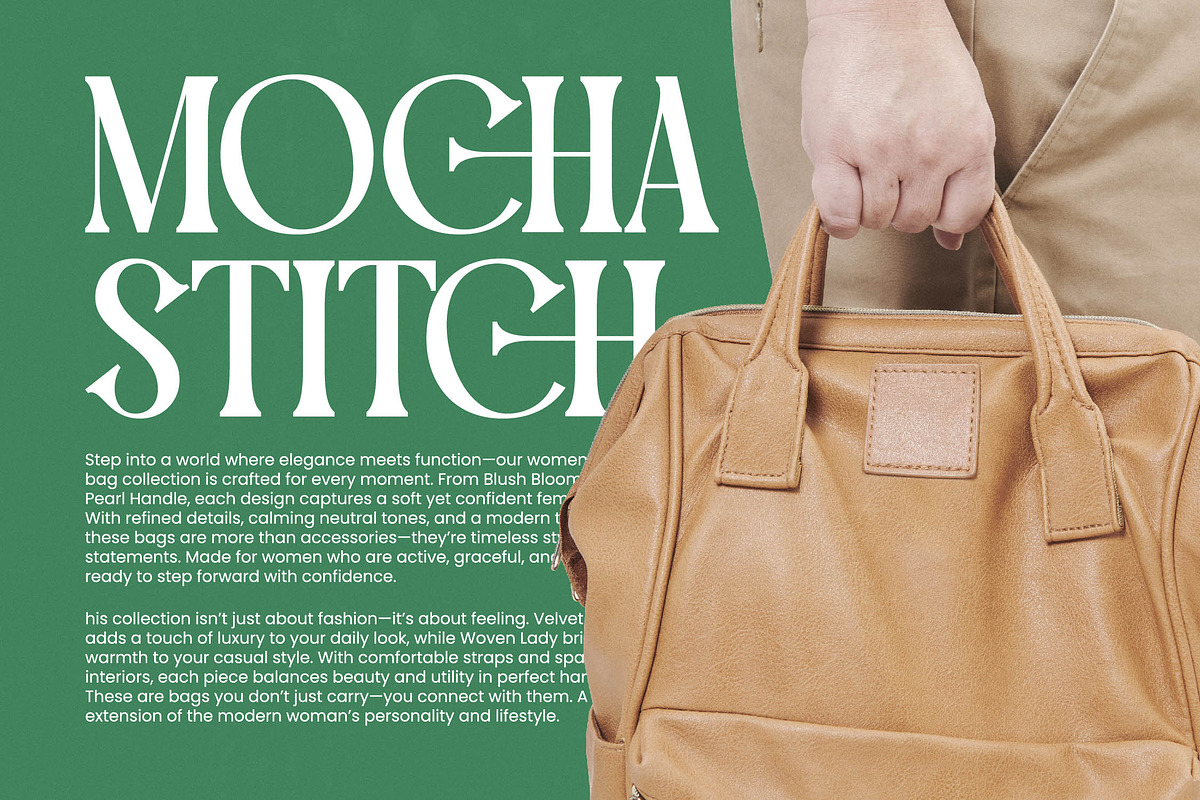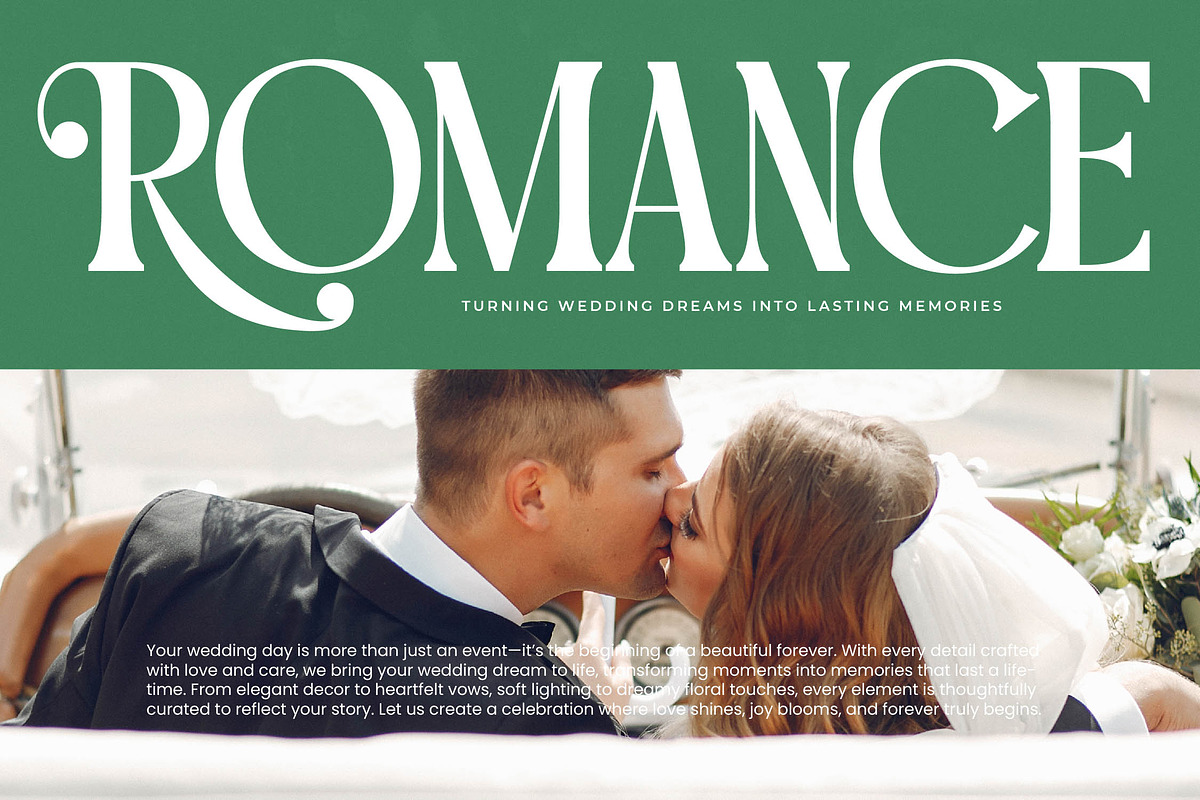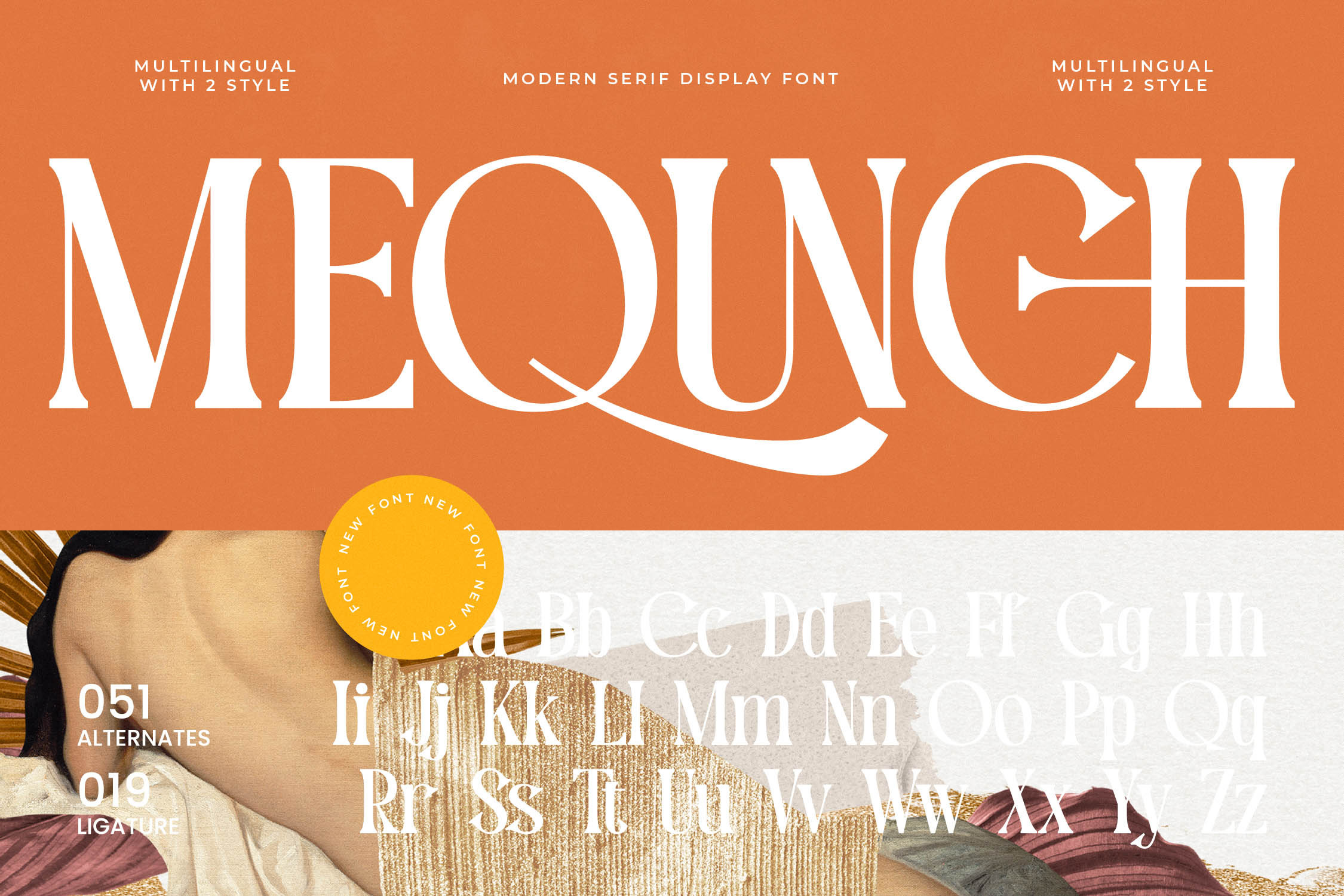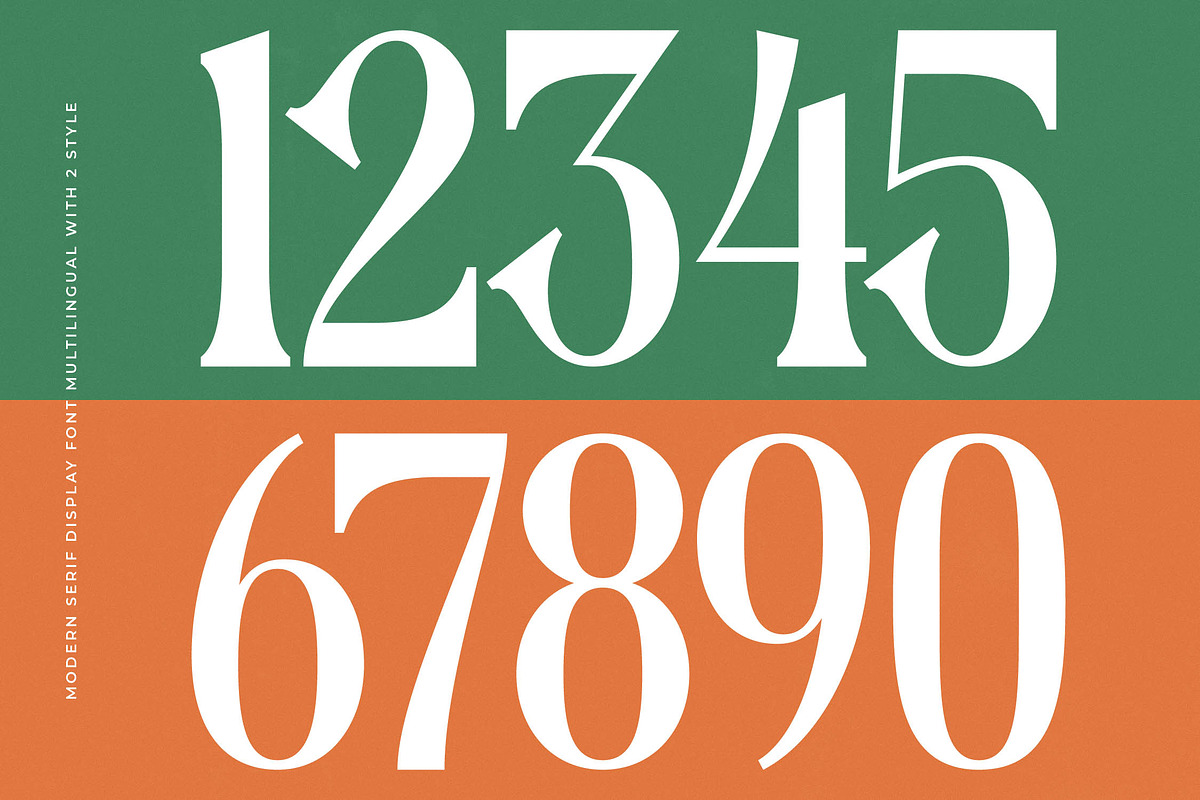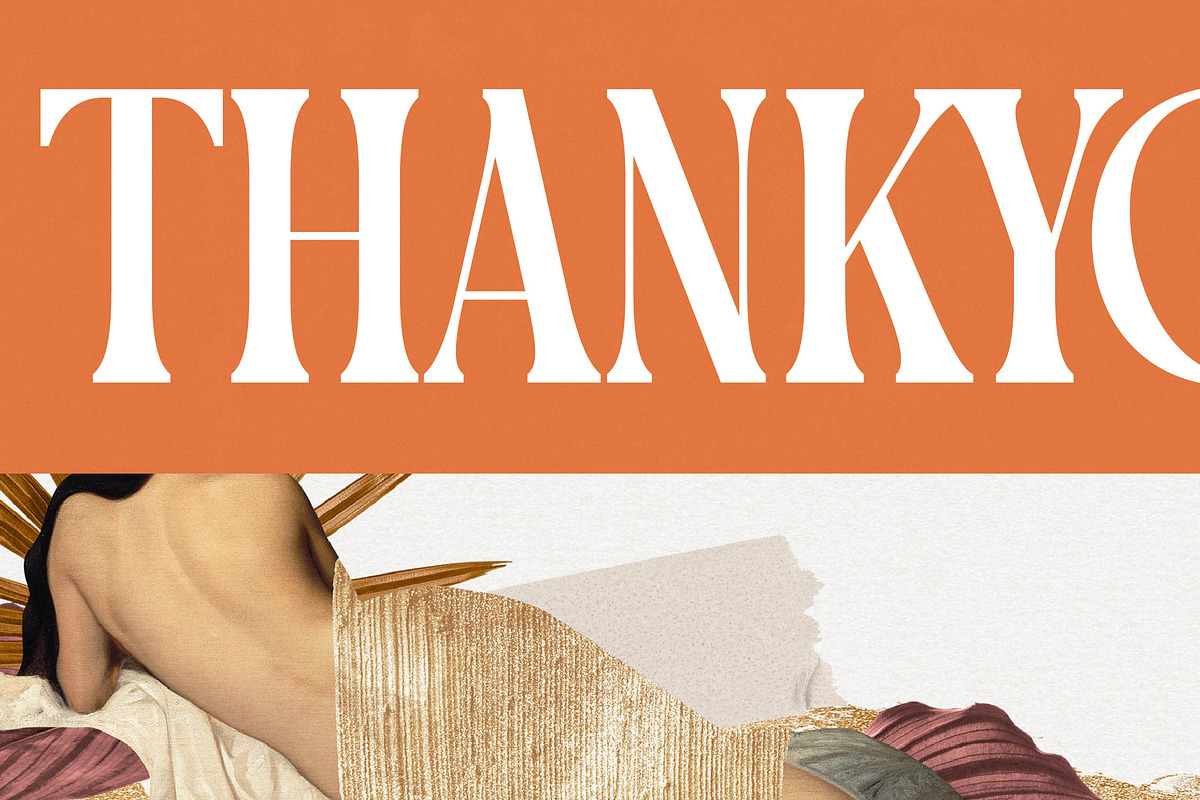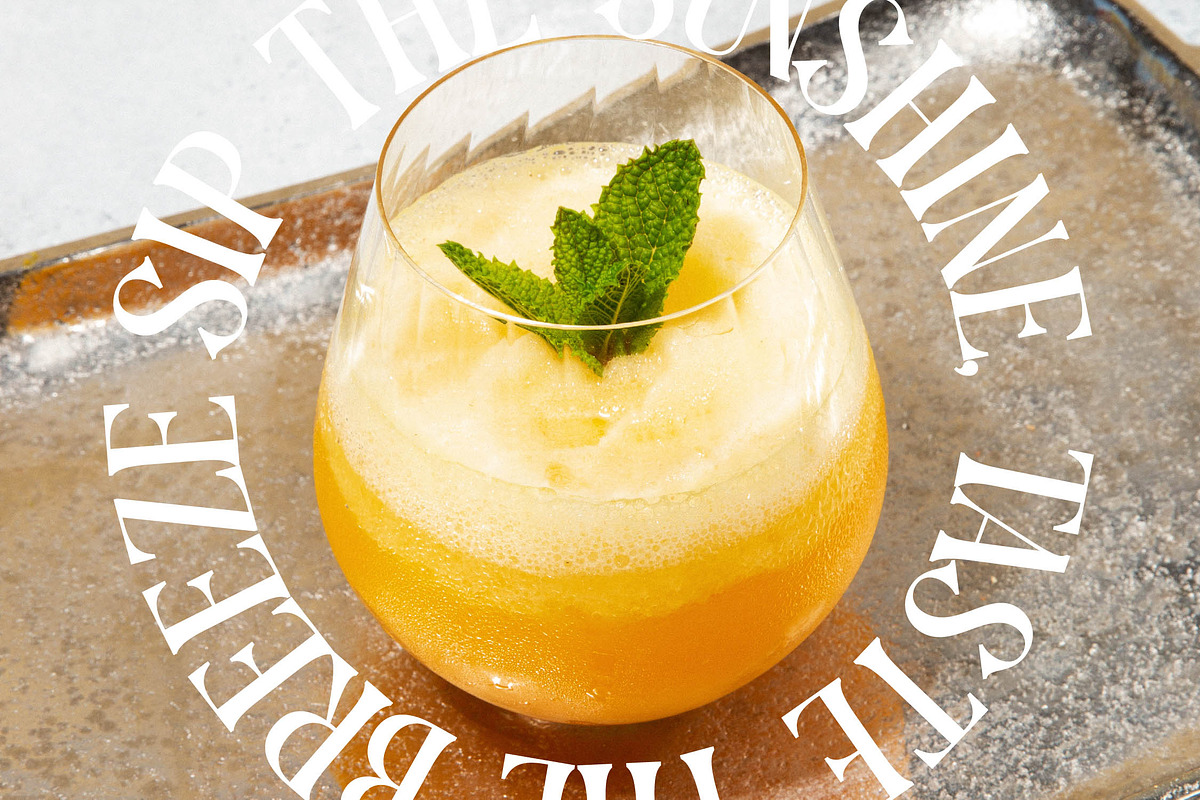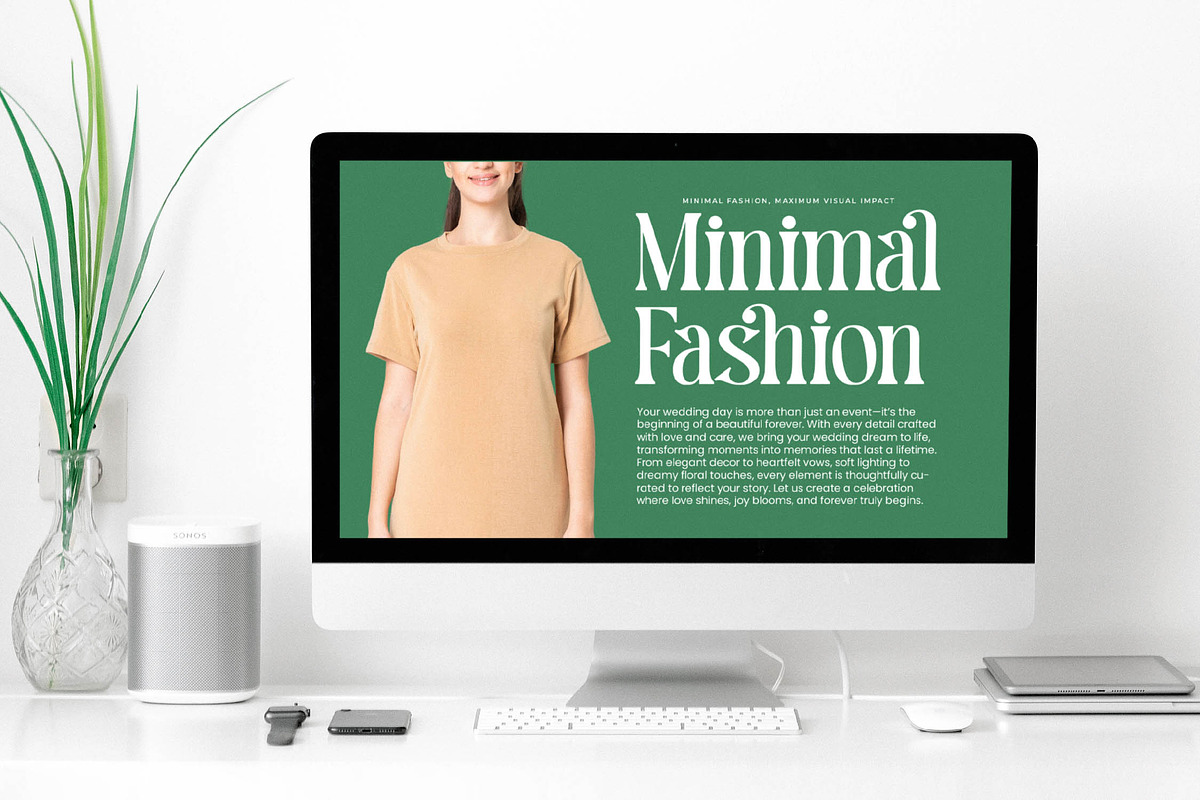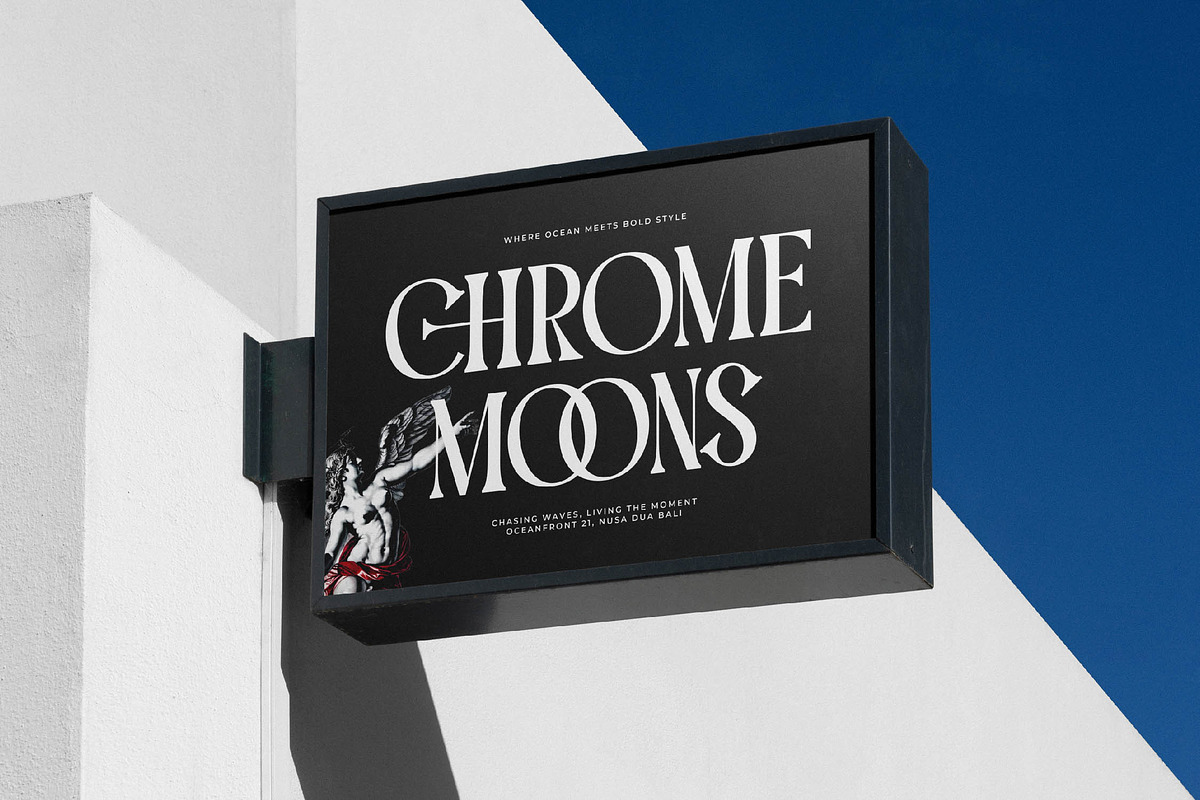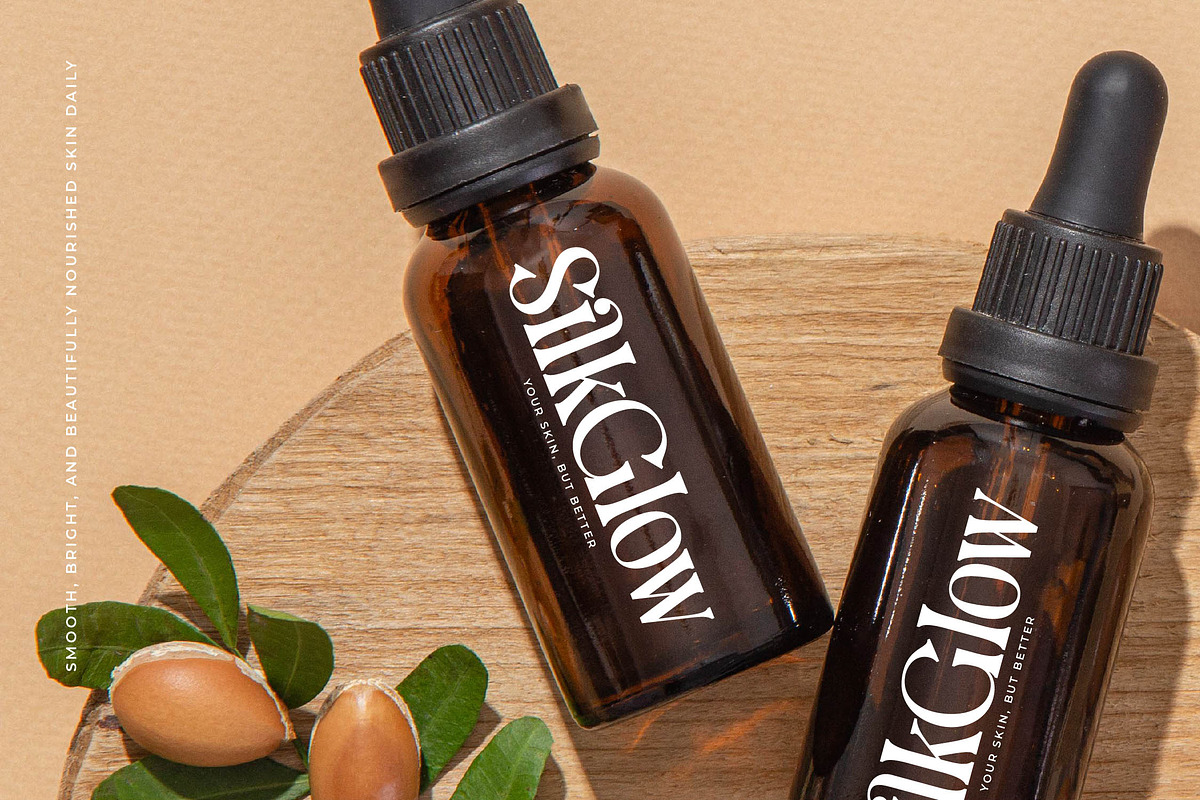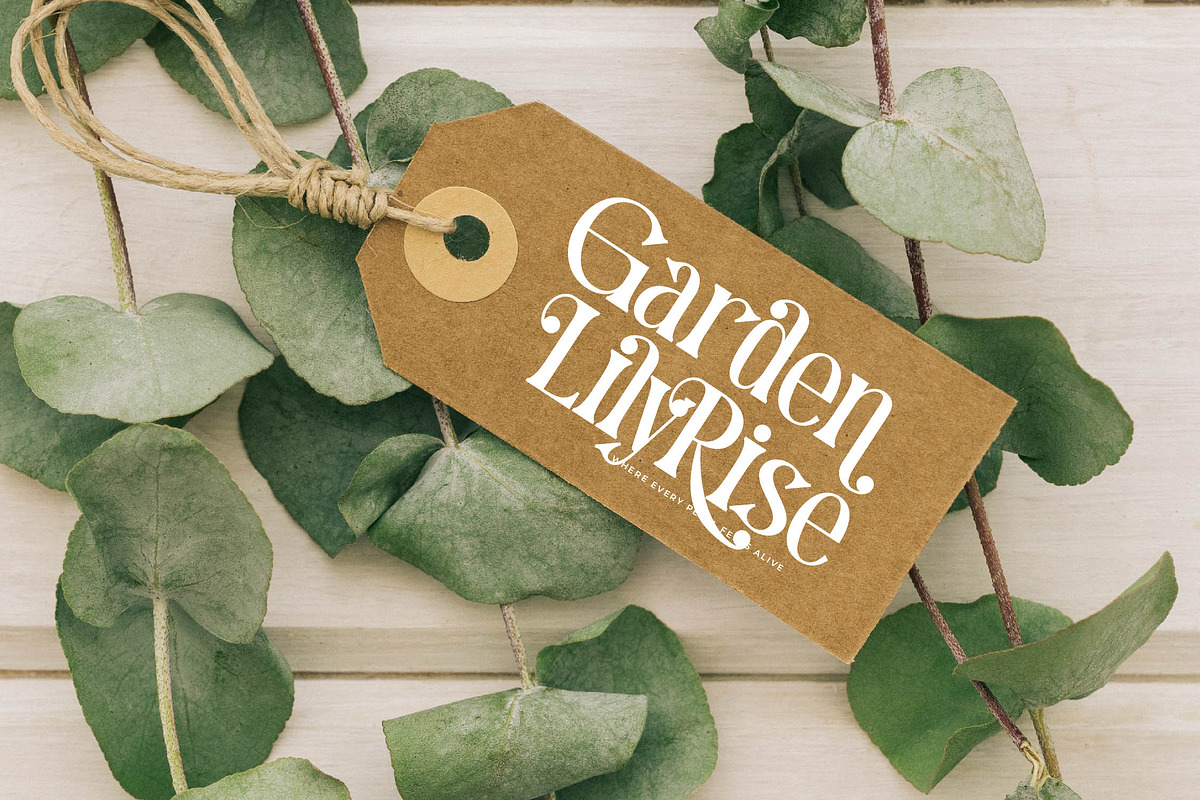
Mequnch Modern Serif Display Font
The Mequnch typeface captures the essence of refined elegance, blending sharp terminals with fluid, sweeping curves to create a visual masterpiece. This Mequnch font is designed to command immediate attention while maintaining an air of effortless sophistication in every character.
Inspired by the intersection of classic European editorial aesthetics and contemporary minimalism, this font evokes a sense of timeless luxury. It reflects the atmosphere of high-end galleries and sun-drenched ateliers, where every detail is curated for maximum visual and emotional impact.
The personality of this modern serif display is defined by its luxury typography and high-contrast serif strokes that dance across the page. It serves as a powerful editorial font that ensures a lasting branding impact, making it the perfect choice for projects that require a touch of class.
Aligning perfectly with the current modern serif trend, this typeface addresses the growing demand for editorial display fonts that offer more than just basic legibility. It leans into the move toward character-driven typography, providing designers with a versatile tool to stay ahead of global aesthetic shifts.
This typeface excels in logo design and high-concept branding, providing a unique voice for editorial layouts and luxury packaging. Its romantic yet bold nature also makes it ideal for wedding stationery and high-street fashion campaigns that require a bespoke, boutique feel.
To enhance your creative workflow, the set includes a generous library of ligatures and alternates that allow for custom letter combinations. It is fully multilingual, featuring a comprehensive range of international characters, swashes, and decorative elements to support global design projects with ease.
- Ligature 019 Alternate 051